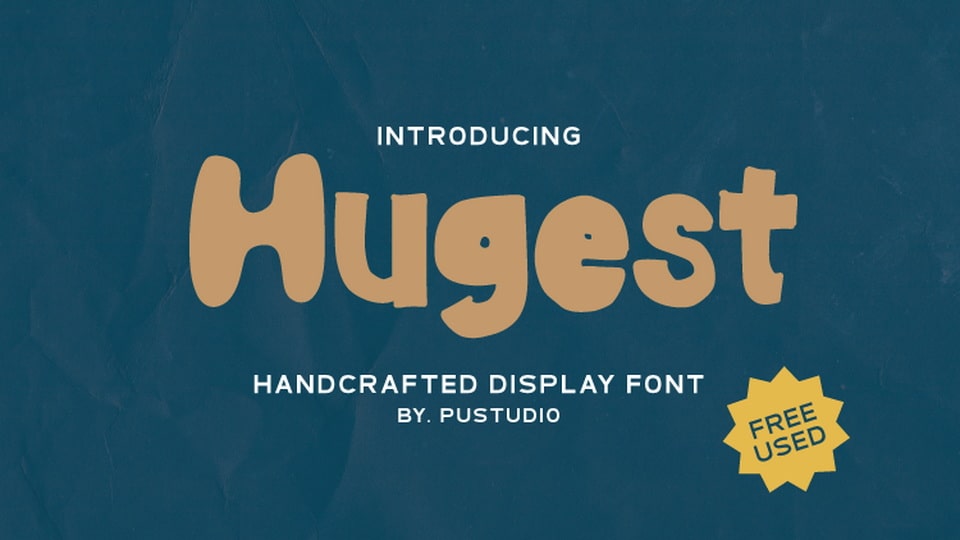
Download Hugest font, a bold and incredibly unique handcrafted typeface. It celebrates abstract shapes in all their eclectic brilliance.
Designer: Pustudio